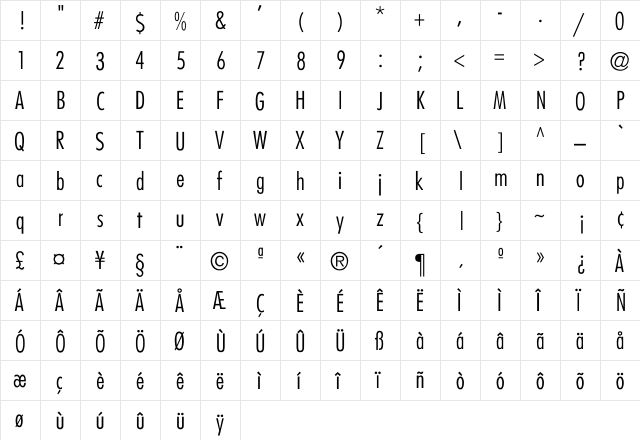
Belmar-CondensedLight-Normal Regular
Design Context for Belmar-CondensedLight-Normal Typeface
Belmar-CondensedLight-Normal is a composed and adaptable typeface that performs quietly and consistently across a wide range of design contexts. Its slender proportions lend an understated elegance to any composition. The condensed width makes it efficient for tight spaces without sacrificing legibility.